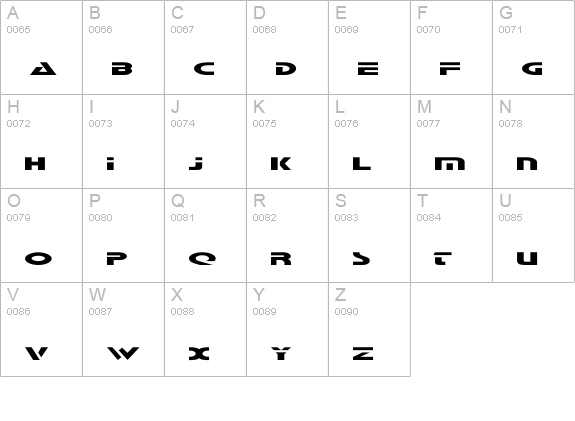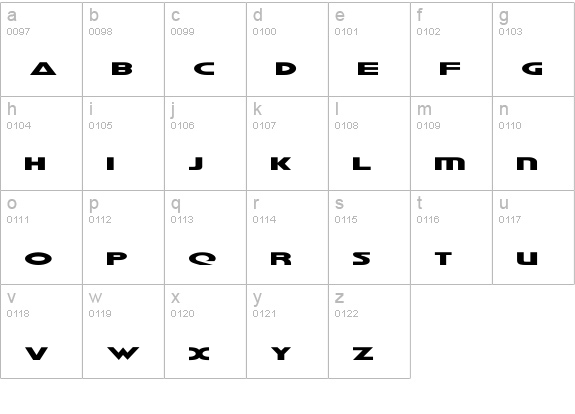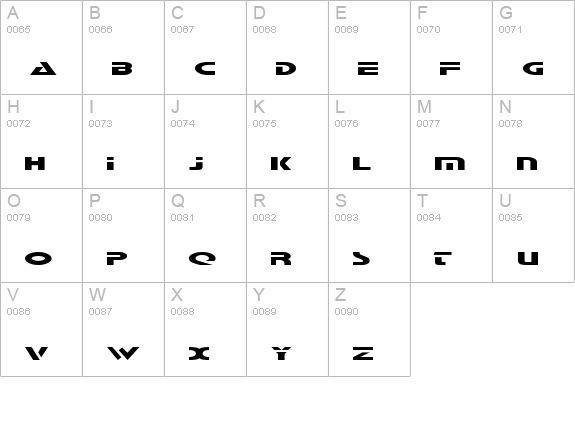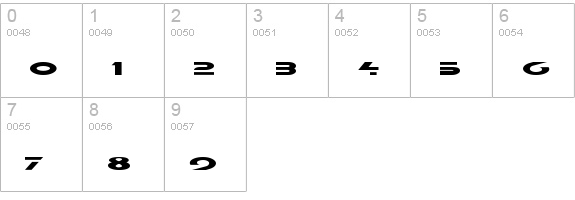
Galant font is a stunning typeface that exudes elegance, sophistication, and modernity. With its sleek and clean lines, this font is perfect for creating eye-catching designs that demand attention. Whether you're working on a logo, website, poster, or any other creative project, Galant font will effortlessly elevate your work to a whole new level. What sets Galant font apart is not just its striking aesthetics but also the fact that it is freely available to download at FontsMarket.com. This means that you can unleash your creativity without any constraints or limitations, as this font is accessible to everyone. No need to worry about licensing fees or restrictions – Galant font is here to empower you to bring your design visions to life without any barriers. Designed with utmost precision and attention to detail, Galant font offers a wide range of characters, symbols, and punctuation marks, making it versatile and adaptable to various design needs. Its legibility ensures that your message is effortlessly communicated to your audience, while its unique style adds a touch of sophistication and refinement. Whether you're a graphic designer, a web developer, or simply someone who appreciates beautiful typography, Galant font is a must-have in your font library. Its versatility, elegance, and the fact that it is freely available to download at FontsMarket.com make it a valuable asset for any creative project. So go ahead, unleash your creativity, and let Galant font be your secret weapon in creating exceptional designs that make a lasting impact.